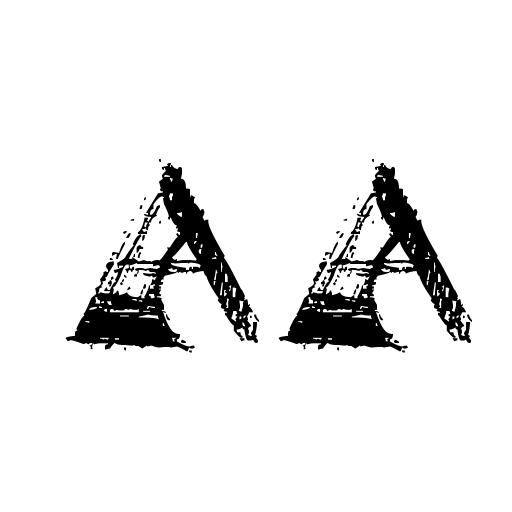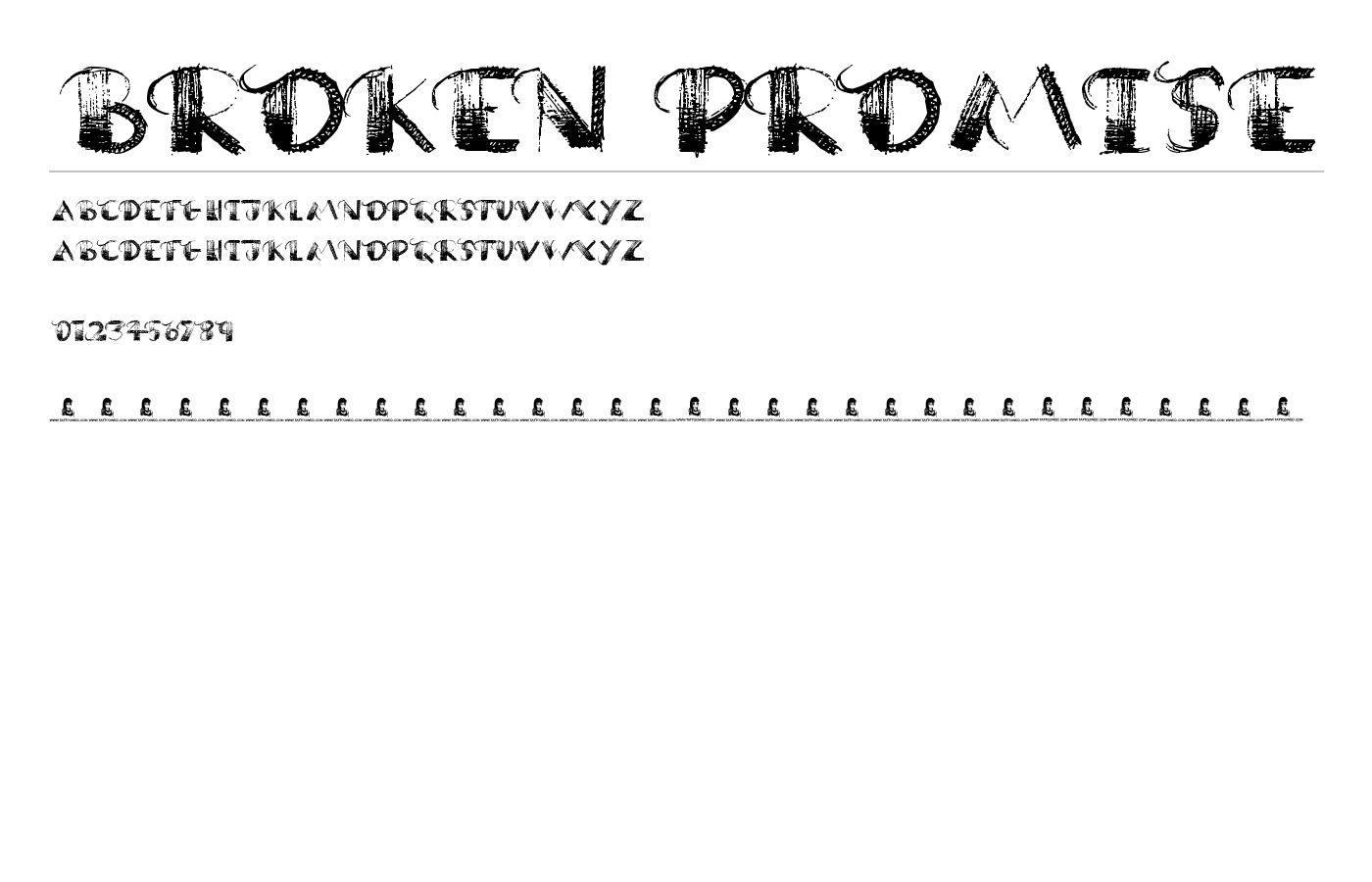
Broken Promise is a distinctive display font that merges a gritty, textured look with an artistic, hand-crafted feel. Its bold, rough strokes and irregular shapes convey a sense of rawness and authenticity, making it perfect for edgy designs, posters, and branding that aims to stand out with a rebellious or expressive personality. This font works best in creative contexts where a strong visual impact and an unconventional style are desired.
Broken Promise Font
About Broken Promise Font